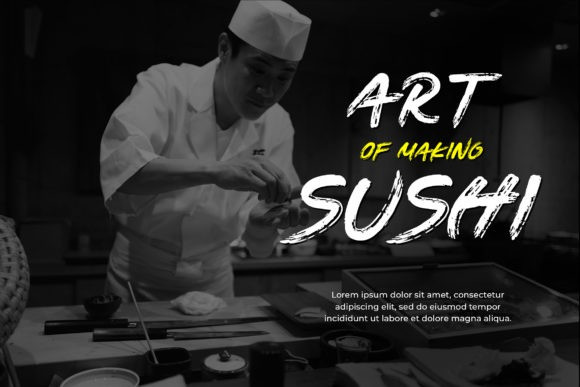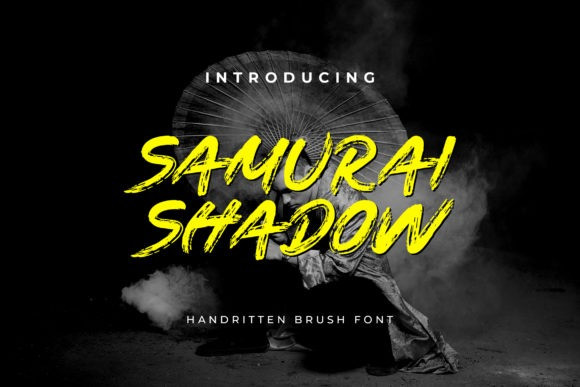
Samurai Shadow Font
Samurai Shadow Font is a cool, trendy and rough styled display font. Add it confidently to your projects, and you will love the results. It can easily be matched to an incredibly large set of projects, so add it to your creative ideas and notice how it makes them stand out!